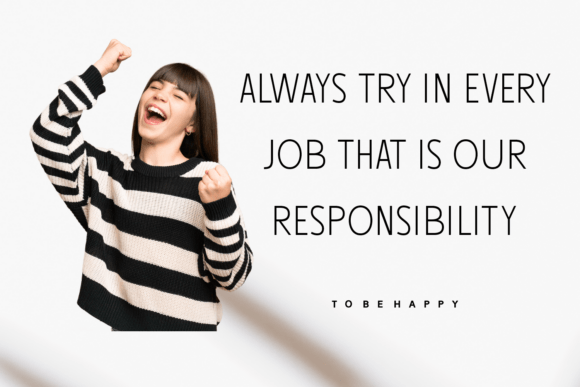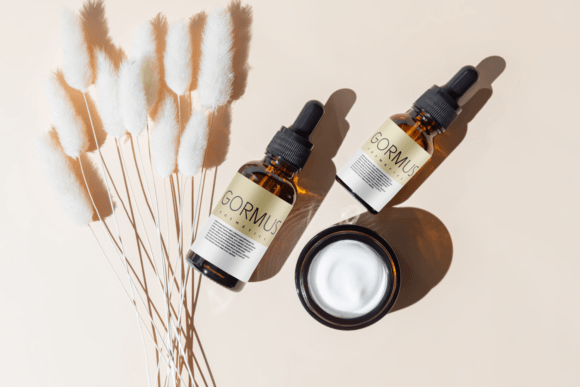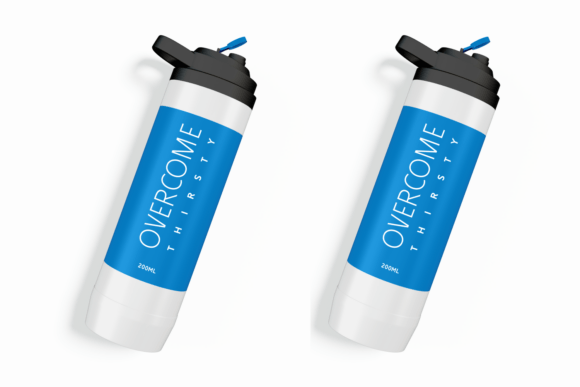
Introduction to Moig Font Font
Fonts play a crucial role in design, and the Moig Font font is a typeface that brings both character and versatility to any project. Whether you’re working on a branding project, a website, or a print design, the Moig Font font offers a unique style that can elevate your work.
Moig is a sleek, modern sans-serif font designed for versatility and elegance.
Its clean lines and balanced proportions make it ideal for branding, web design, and editorial layouts With a contemporary aesthetic, Moig delivers readability and sophistication for both digital and print applications.
Key Features of Moig Font Font
Why Choose Moig Font Font?
The Moig Font font is more than just a typeface – it’s a design tool that helps you communicate your message with style and clarity. Its unique character set and versatile design make it suitable for a wide range of applications, from elegant invitations to bold headlines.
With its carefully crafted letterforms and balanced proportions, the Moig Font font ensures readability and visual appeal across all mediums.
What makes Moig Font font special?
The Moig Font font stands out with its unique design, exceptional readability, and versatility across various design applications.